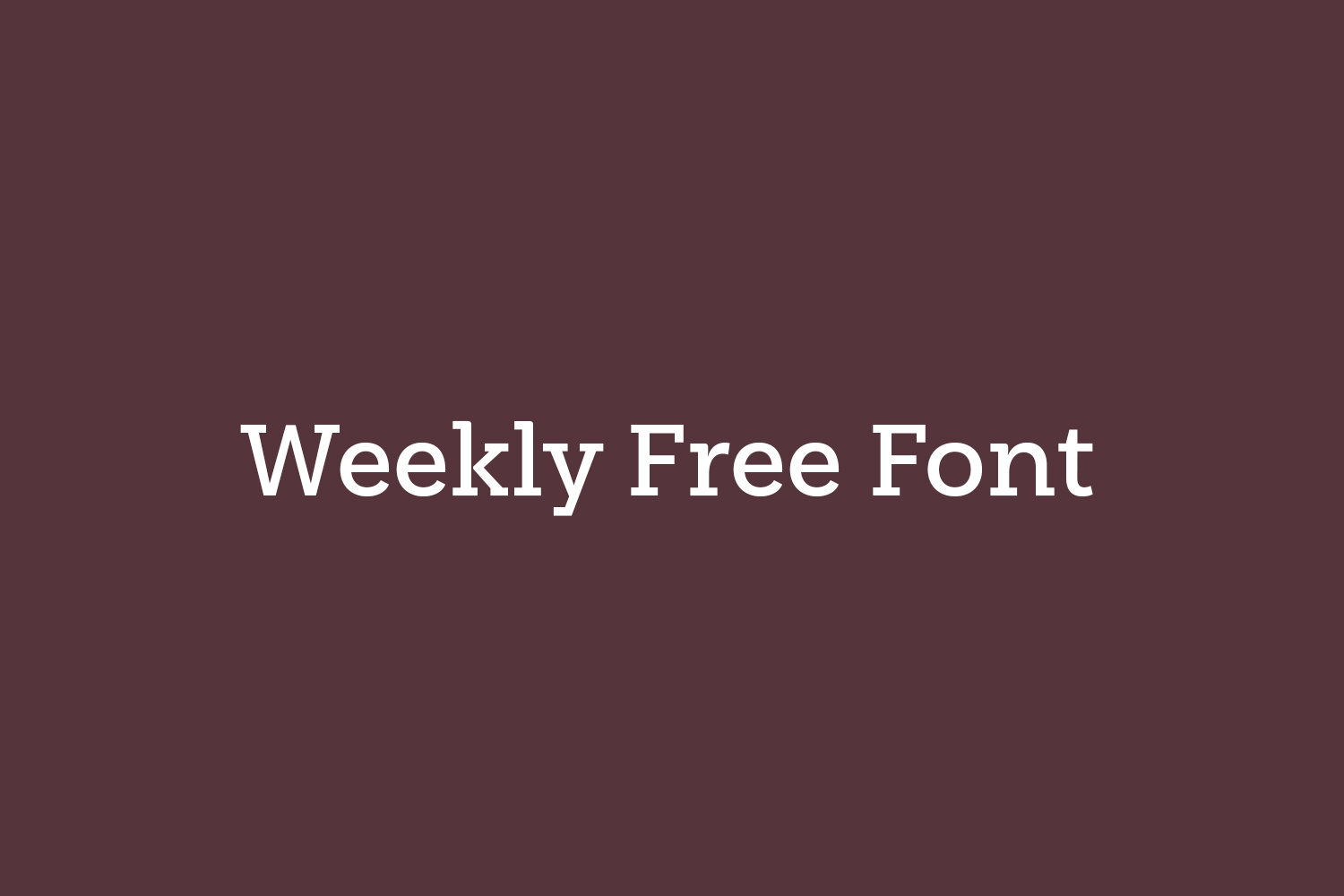
Weekly Free Font is a slab serif that wants to be a sans. The font was created under the premise that it can be used as a sans: a fresh design without that retro feel typical of slab fonts. As a result, we developed an Egyptienne font-more simple compared to others of its kind, a feature that gives it its unique personality. We have created a special 2-weight version for you to enjoy.
Designed by Latinotype